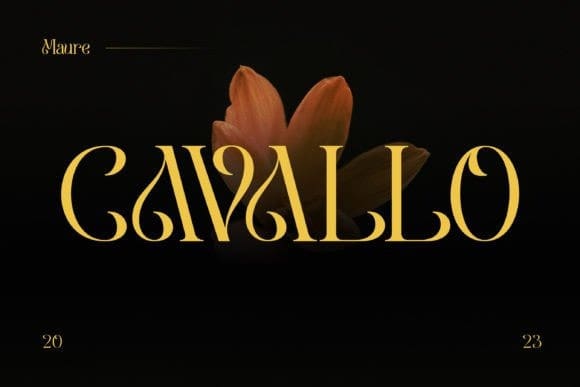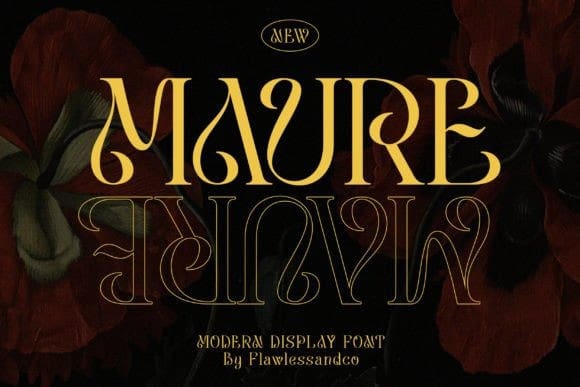
Maure Font
Maure Font  – A Modern Display Font. Embrace the modern era of design with “Maure,” a sleek and contemporary display font that adds a touch of sophistication to your projects. With its clean lines and stylish character, “Maure” is designed to make a bold statement and convey a sense of contemporary elegance.